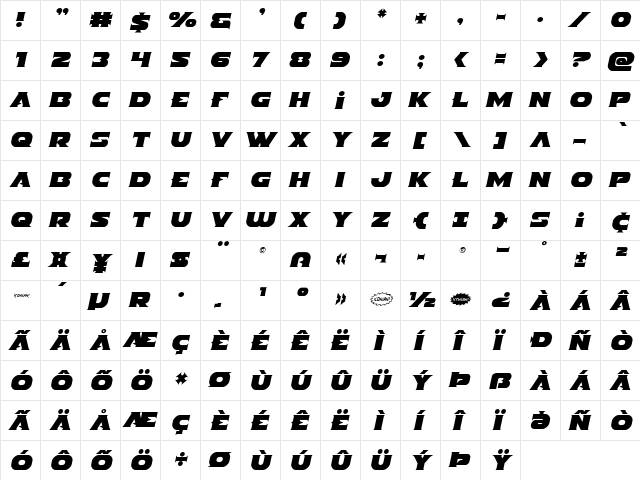
Indigo Demon Semi-Italic Semi-Italic
Design Context for Indigo Demon Semi-Italic Typeface
Indigo Demon Semi-Italic takes a measured approach to typography — its balanced proportions and neutral character make it a reliable workhorse for both digital and print work. The dynamic lean of this cut emphasises speed and emphasis in any layout.
Pro Tip: Try Indigo Demon Semi-Italic for annotation and caption copy alongside an upright companion — the contrast in angle creates a dynamic but ordered typographic system.